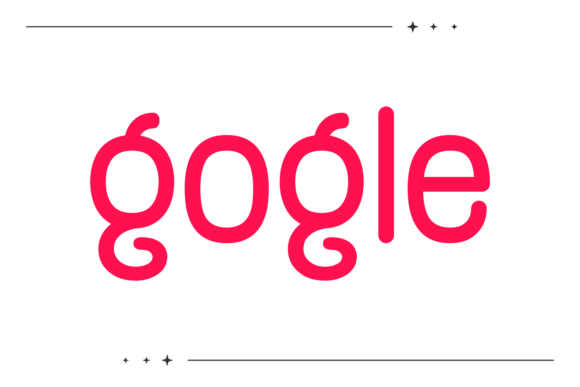
Introducing the Gogle Font, a versatile branding tool that will transform your products with its unique artistic touch. Whether you’re creating invitations, designing a bold sports logo, or anything in between, this font is sure to fill you with its soft, sweet, and sporty character. Its unique feminine touch combined with an edgy appeal makes it a valuable asset for designers looking to make a statement.
Gogle Font Key Features
Gogle Font Review
I was excited to try out Gogle Font, a new font option that’s been generating a lot of buzz. ✨ Here’s my honest review.
- Modern and Sleek Design: Gogle Font has a clean and modern aesthetic that’s perfect for contemporary designs. ✨
- Highly Legible: The font is extremely legible, making it ideal for body text and large blocks of content. ✨
- Good for Digital Use: Gogle Font is optimized for digital use, making it perfect for websites, mobile apps, and social media. ✨
- Limited Character Set: Gogle Font has a limited character set, which can make it difficult to use for languages that require a wide range of characters. ⚠️
- No Italic or Bold Options: Currently, there are no italic or bold options available for Gogle Font, which can limit its versatility. ⚠️
Gogle Font is a solid choice for modern designs, but it’s not without its limitations. While it’s perfect for body text and digital use, it may not be the best option for languages that require a wide range of characters or for designs that require italic or bold text. With a bit more development, Gogle Font could be a top contender in the font market.